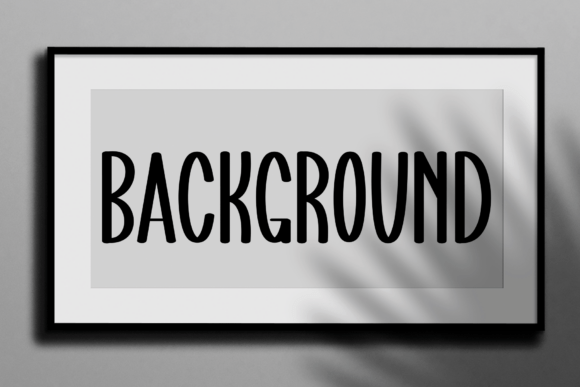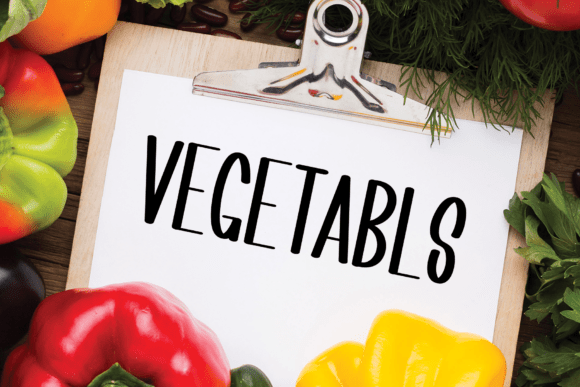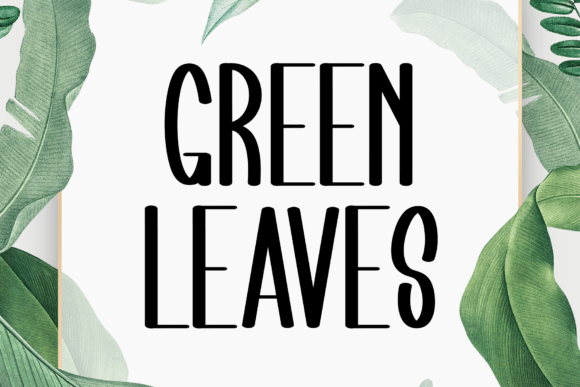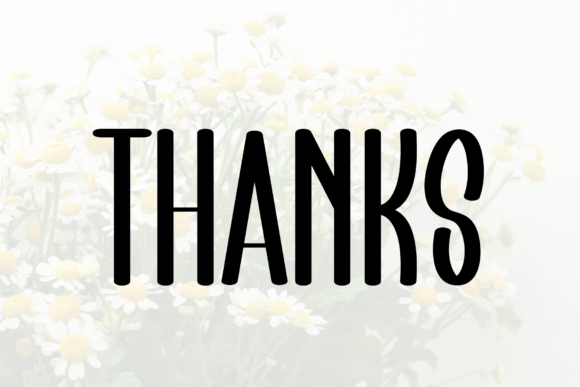
Introducing Farmhouse Font: A Sweet and Beautiful Handwritten Delight
Are you a designer or crafter looking for a font that adds a touch of warmth and coziness to your design projects? Look no further than Farmhouse Font! This sweet and beautiful handwritten font is perfect for creating inviting and charming designs that evoke a sense of rustic charm. In this article, we’ll take a closer look at Farmhouse Font, its features, and how you can use it to elevate your design projects.
Farmhouse Font is a carefully crafted handwritten font that features characters that dance along the baseline, giving it a playful and whimsical feel. The font’s unique design makes it perfect for adding a personal touch to a wide range of design projects, from branding and packaging to invitations and crafts. Whether you’re looking to create a rustic, country-inspired design or a more modern and elegant look, Farmhouse Font is sure to impress.
- Handwritten charm: Farmhouse Font boasts a beautiful, handwritten aesthetic that’s perfect for creating designs that feel personal and unique.
- Dancing characters: The font’s characters dance along the baseline, giving it a playful and whimsical feel that’s sure to capture attention.
- Coziness guaranteed: Farmhouse Font is designed to add a touch of warmth and coziness to your designs, making it perfect for creating inviting and charming projects.
- Versatile: This font is perfect for a wide range of design projects, from rustic and country-inspired designs to modern and elegant looks.
How to Use Farmhouse Font in Your Design Projects
Farmhouse Font is incredibly easy to use and can be incorporated into a wide range of design projects. Here are a few ideas to get you started:
- Branding and packaging: Use Farmhouse Font to create custom branding and packaging that stands out from the crowd.
- Invitations and events: Add a personal touch to your invitations and event materials with Farmhouse Font’s charming handwritten aesthetic.
- Crafts and DIY projects: Farmhouse Font is perfect for crafters and DIY enthusiasts looking to add a personal touch to their projects.
- Digital designs: Use Farmhouse Font in your digital designs, such as social media graphics, blog posts, and website headers.
Why Choose Farmhouse Font?
With so many fonts to choose from, why should you choose Farmhouse Font? Here are just a few reasons why:
- Unique and eye-catching: Farmhouse Font’s dancing characters and handwritten aesthetic make it a unique and eye-catching addition to any design project.
- Easy to read: Despite its playful feel, Farmhouse Font is incredibly easy to read, making it perfect for body text and headings.
- High-quality design: Farmhouse Font is carefully crafted to ensure that it looks beautiful and elegant in any design project.
Farmhouse Font is a sweet and beautiful handwritten font that’s perfect for designers and crafters looking to add a touch of warmth and coziness to their design projects. With its unique dancing characters and handwritten aesthetic, this font is sure to capture attention and leave a lasting impression. Whether you’re looking to create a rustic, country-inspired design or a more modern and elegant look, Farmhouse Font is the perfect choice.